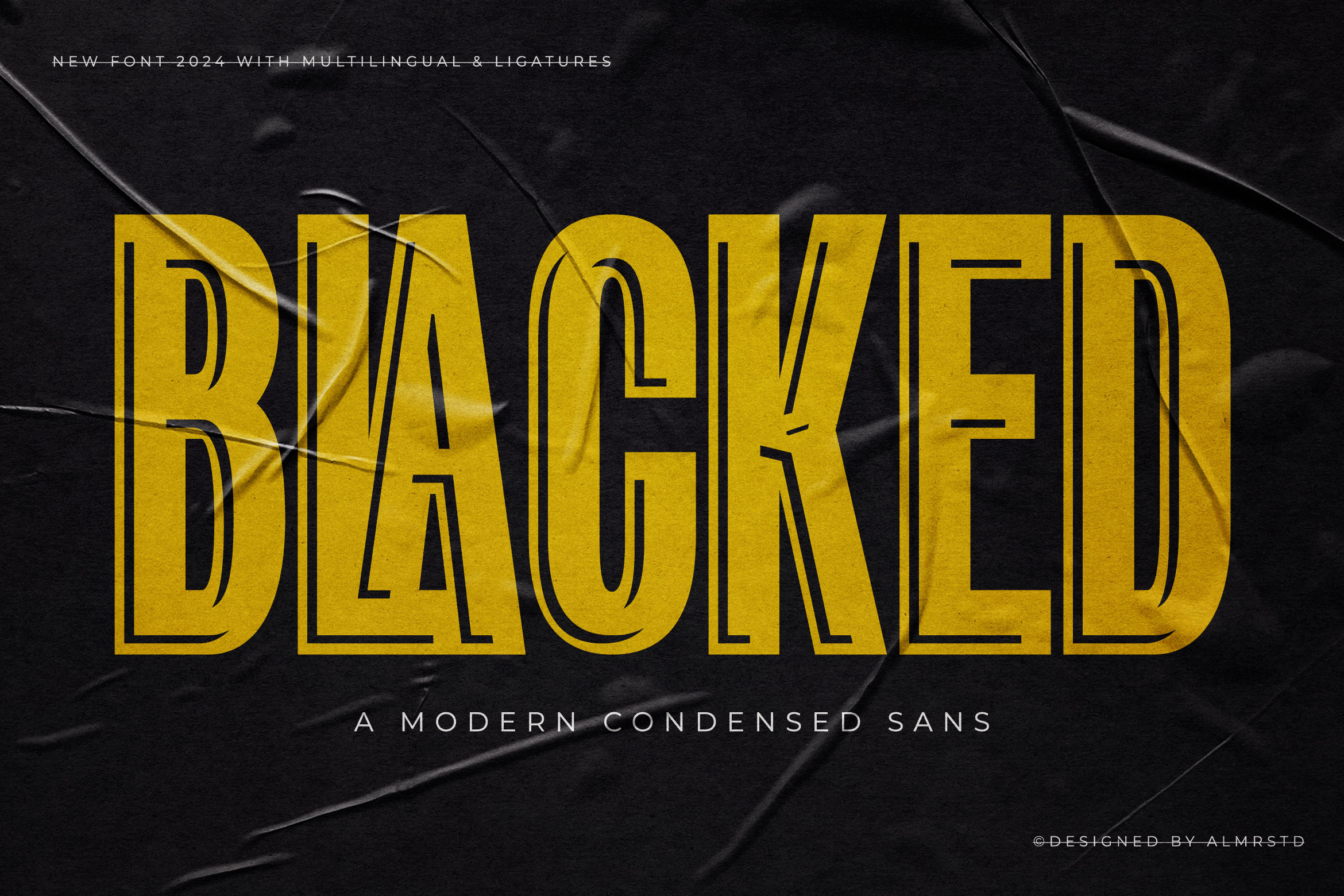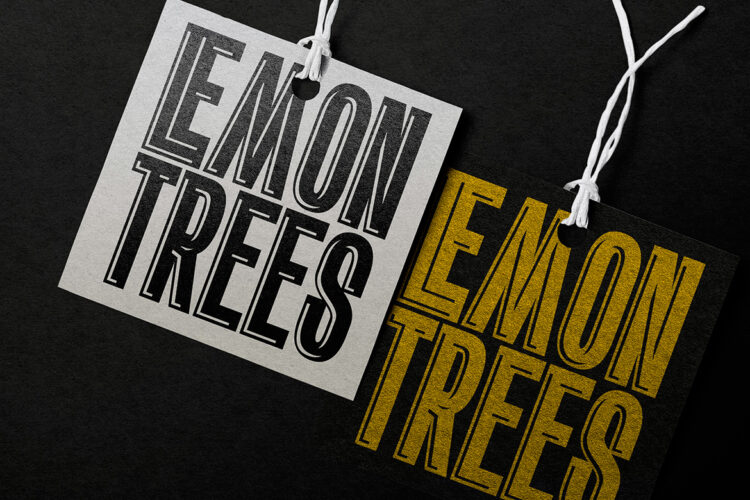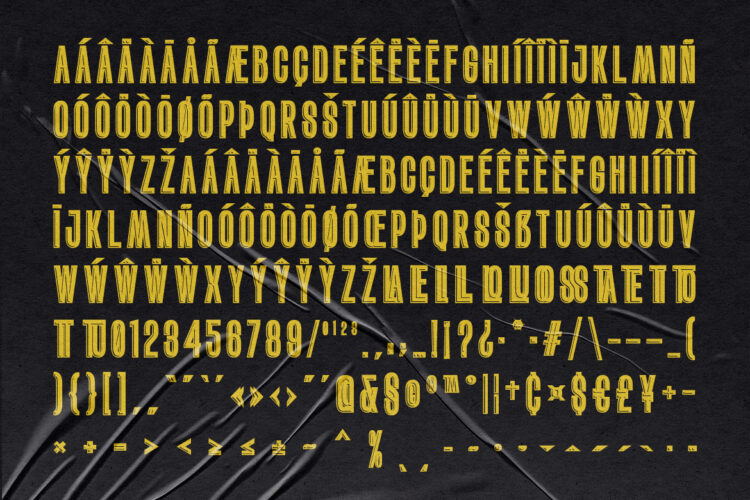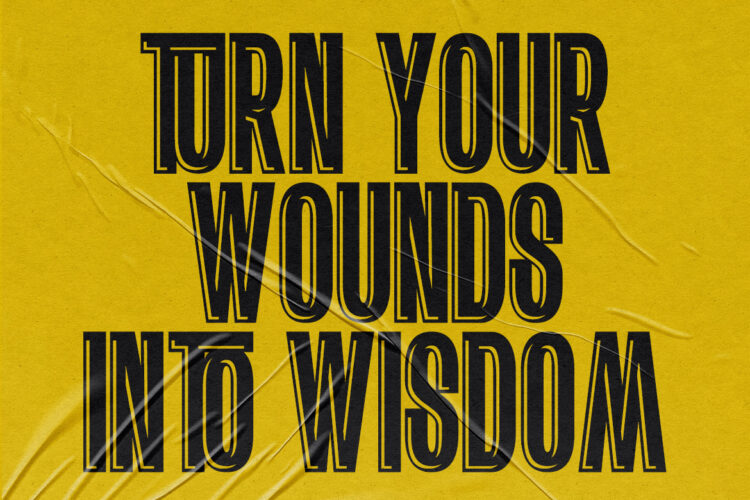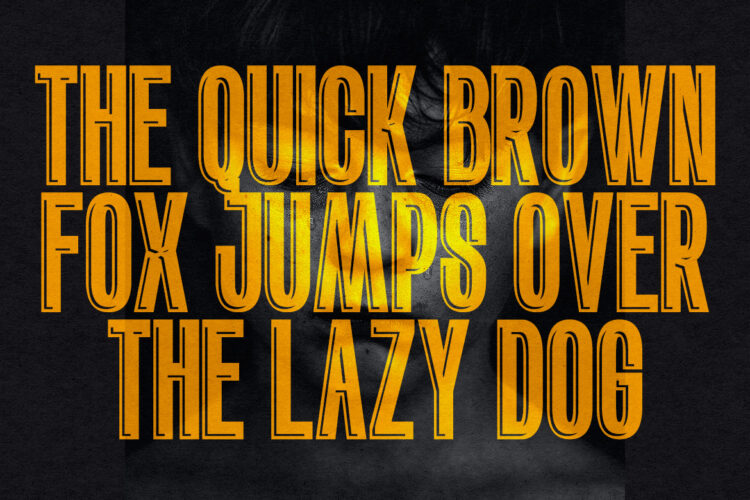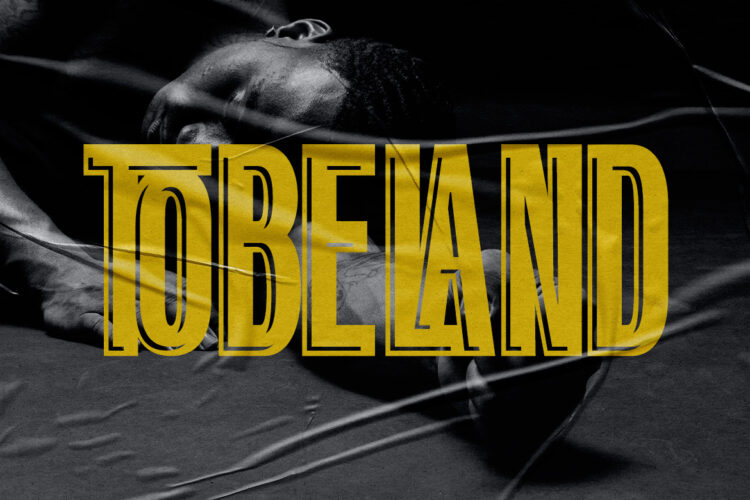
Introducing our new Blacked Condensed Sans, modern condensed san serif font with elegant style this is perfect for branding, logos, invitation, magazines, product packaging and more.
Blacked